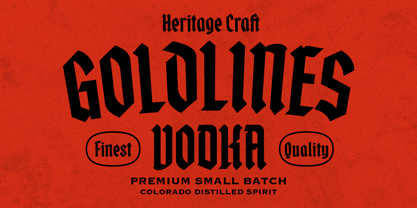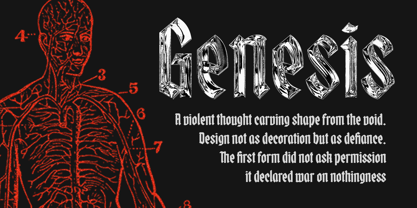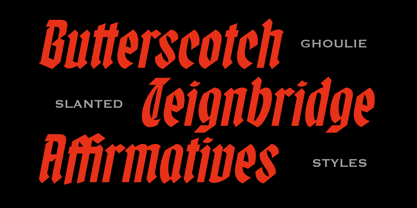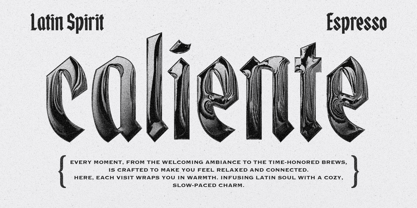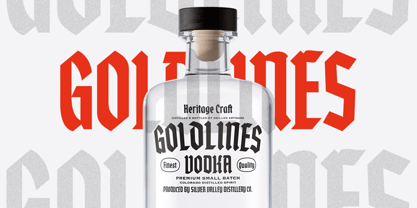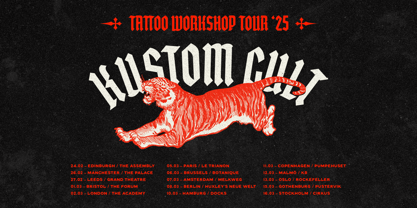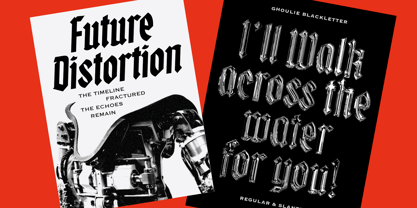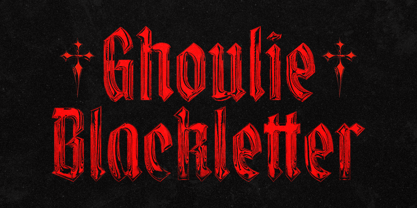
IC Ghoulie
by Ironbird Creative
The IC Ghoulie Font Family was designed by Bagas Ferdiansah, Septianto Nugroho and published by Ironbird Creative. IC Ghoulie contains 2 styles and family package options.
IC Ghoulie is a blackletter font with a touch of modern flair, while still preserving its vintage and old-school character. It comes in both Regular and Slanted styles that can be combined for a more striking and engaging look. Designed to elevate bold branding, it’s perfect for cool and confident visual identities. It also supports multilingual characters and includes a few alternate glyphs and select ligatures